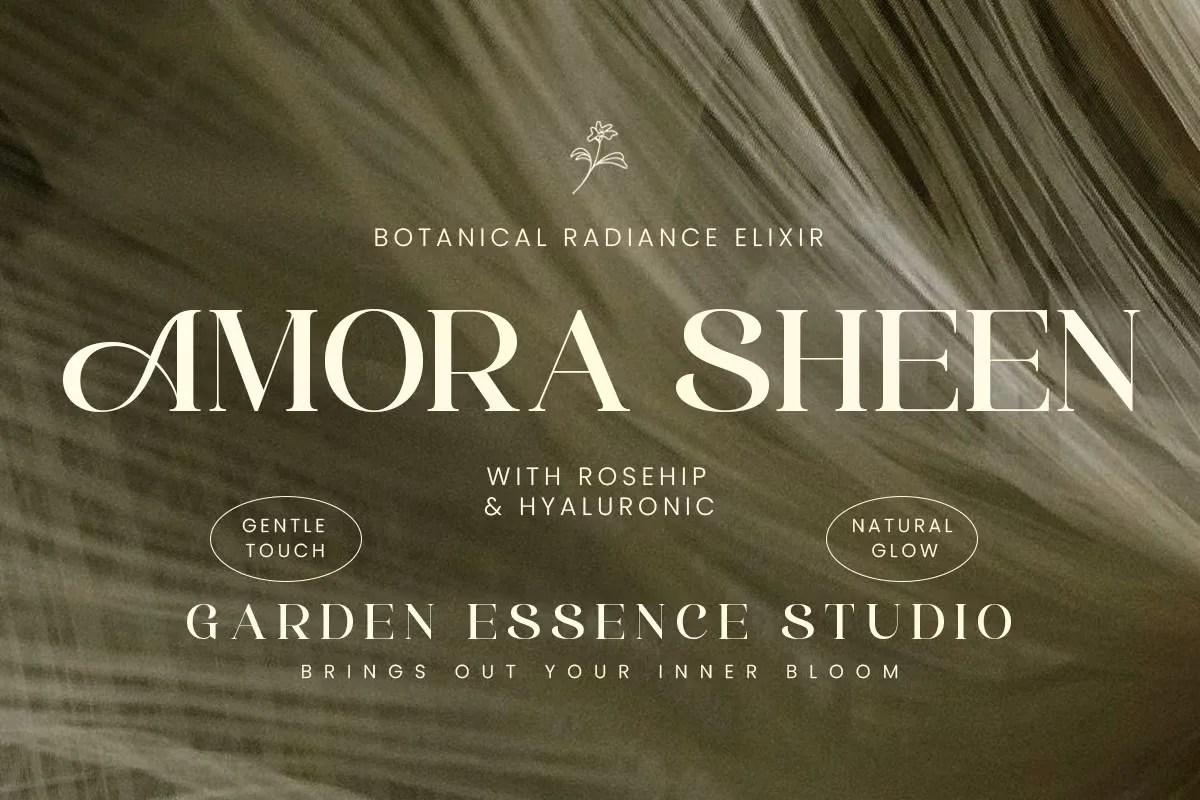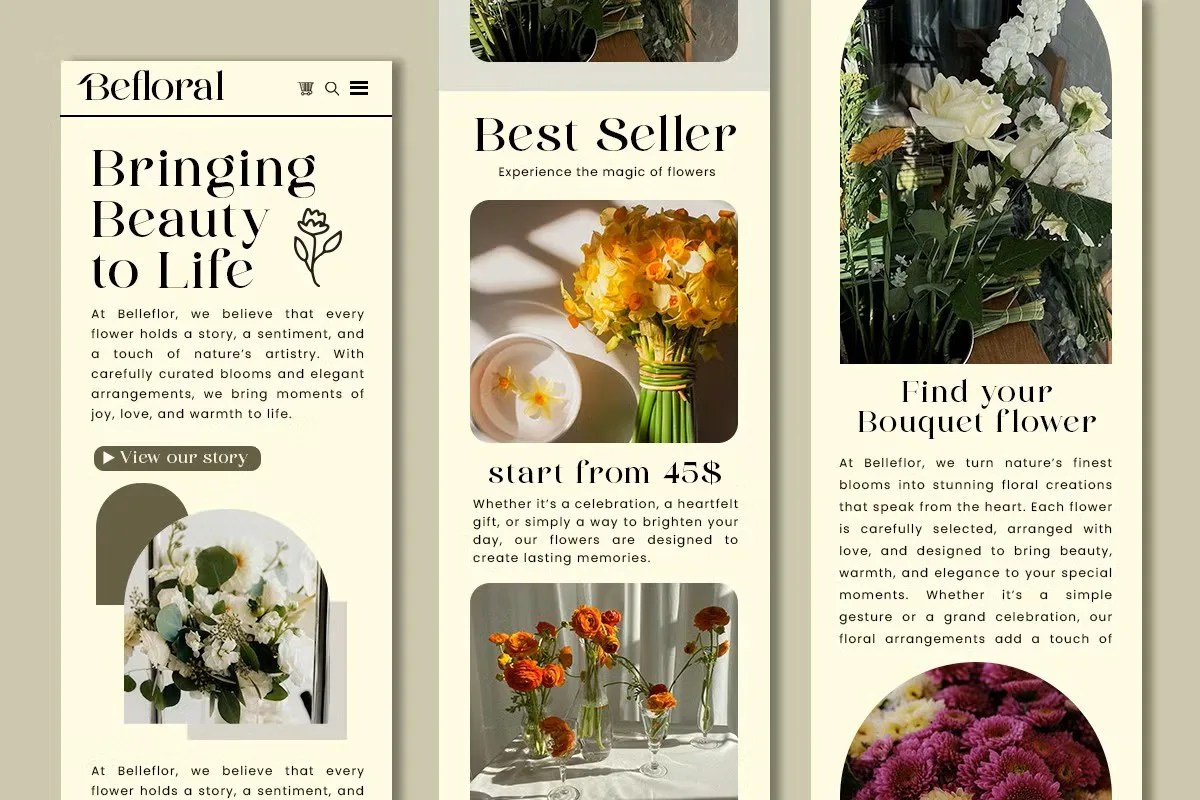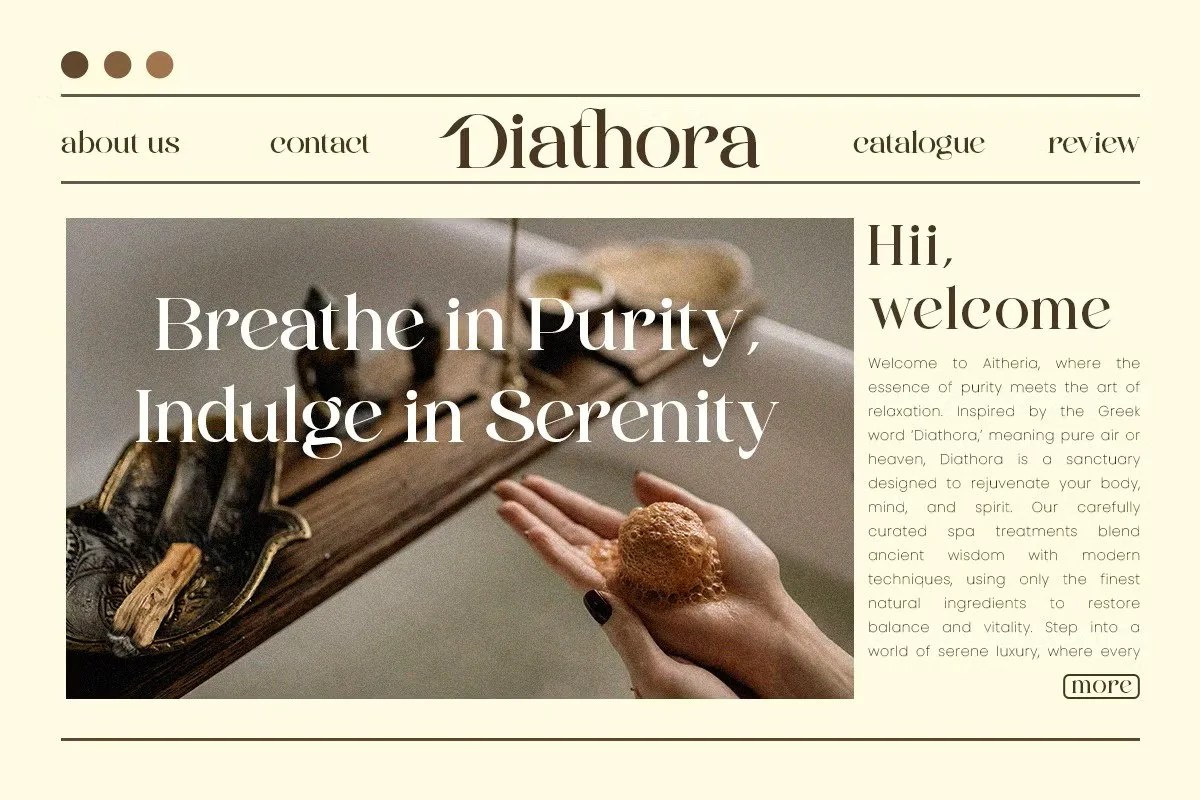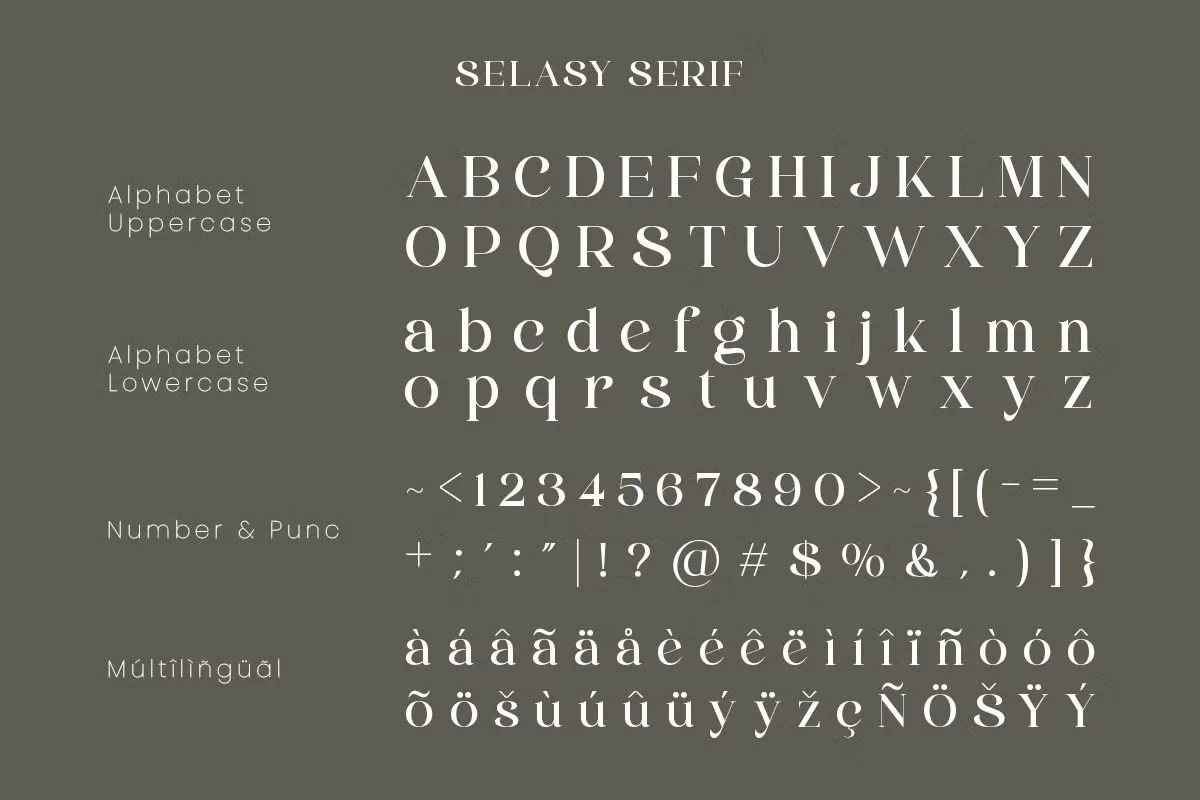
Selasy by Roomspace. This is a refreshing and elegant serif font that brings a sense of calm and clarity to any design. Its name evokes a feeling of natural grace and tranquility. The typeface offers a clean, sophisticated look with a gentle and approachable personality. Roomspace created Selasy for projects that need to feel both refined and effortlessly natural, providing a breath of fresh air for your creative work.
This font is a natural choice for a wide range of lifestyle and wellness projects. Specifically, its calm demeanor is perfect for branding a spa, a yoga studio, or a line of organic products. It immediately communicates a sense of peace and mindfulness. Furthermore, this elegant serif font is excellent for editorial content in magazines or blogs that focus on travel, food, and wellness. Use it to create beautiful packaging for natural goods or to design invitations that feel both personal and incredibly sophisticated.
• Creative and elegant serif style
• Features soft, graceful letterforms
• Ideal for wellness, lifestyle, and editorial branding
• Provides a calm and sophisticated feel
Selasy